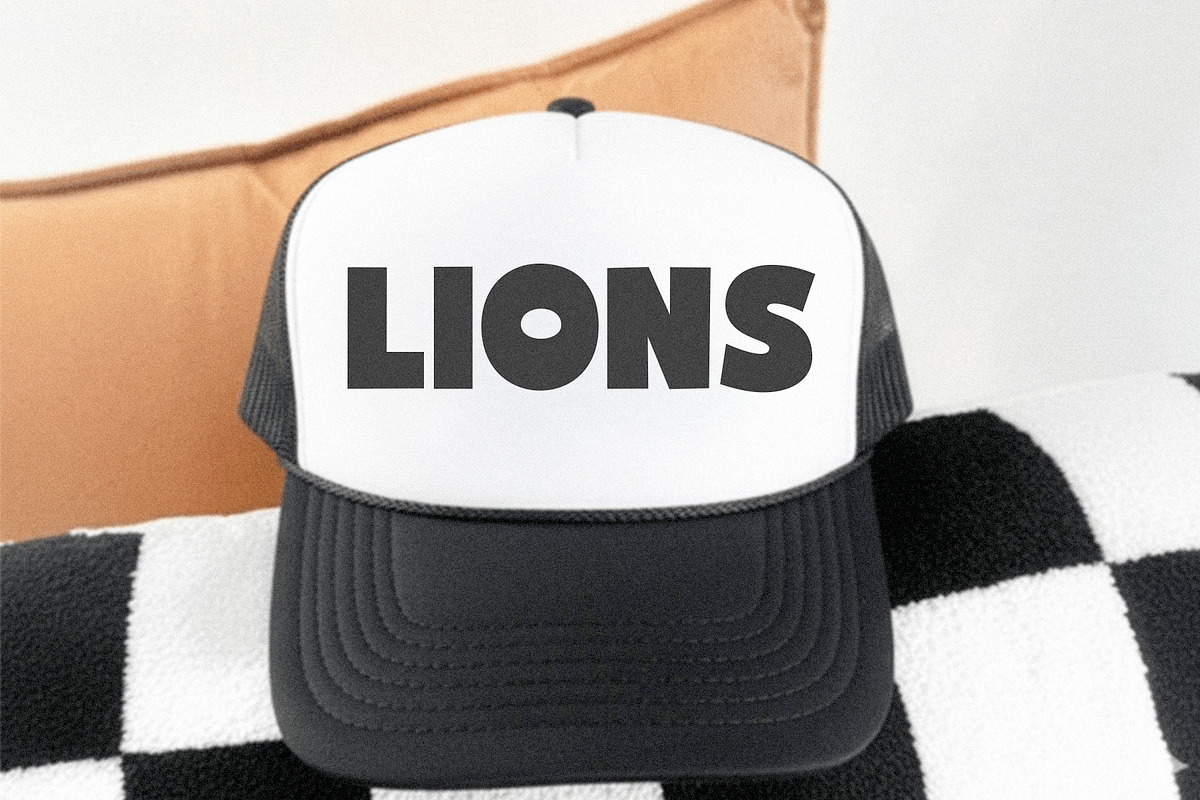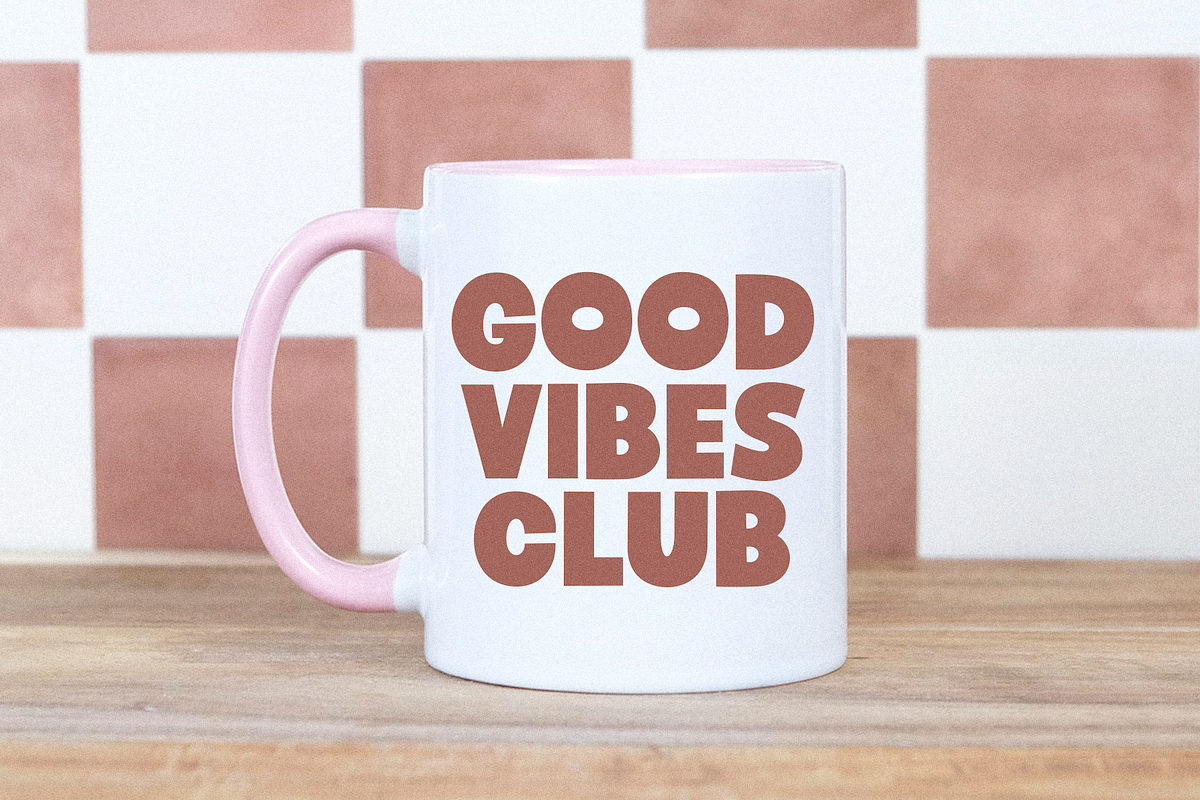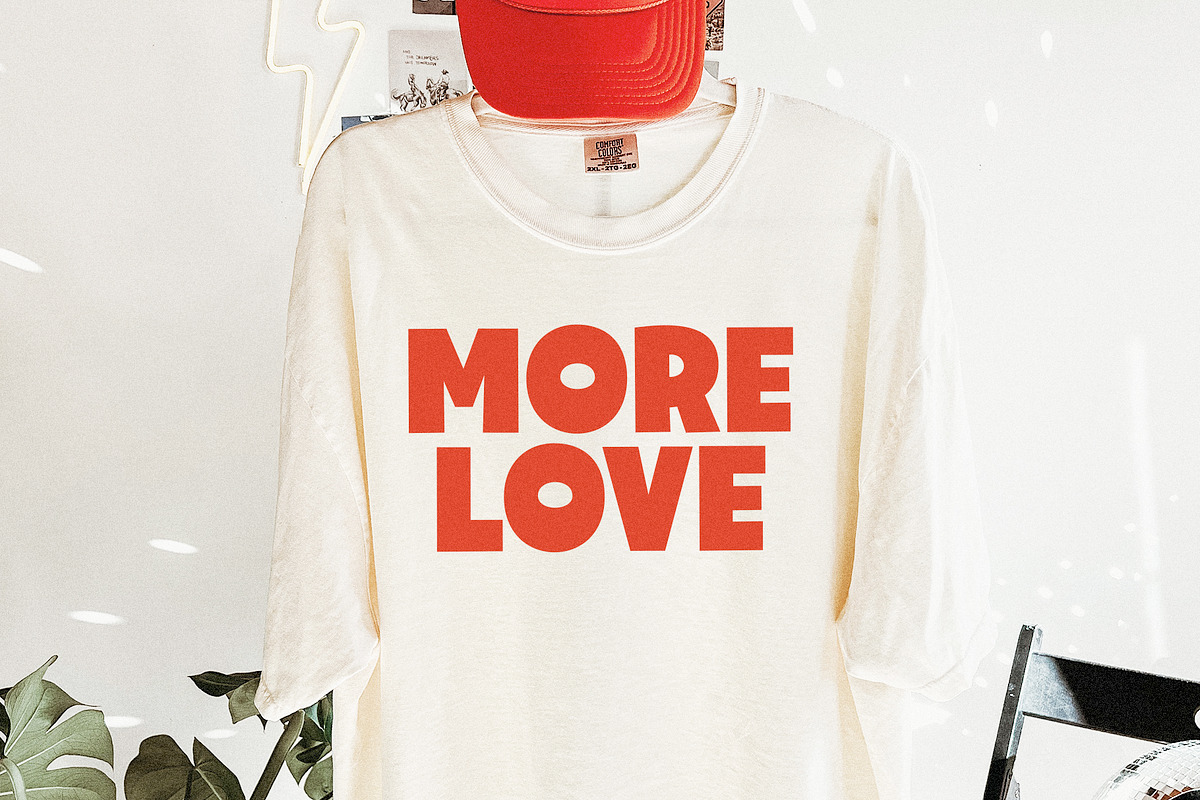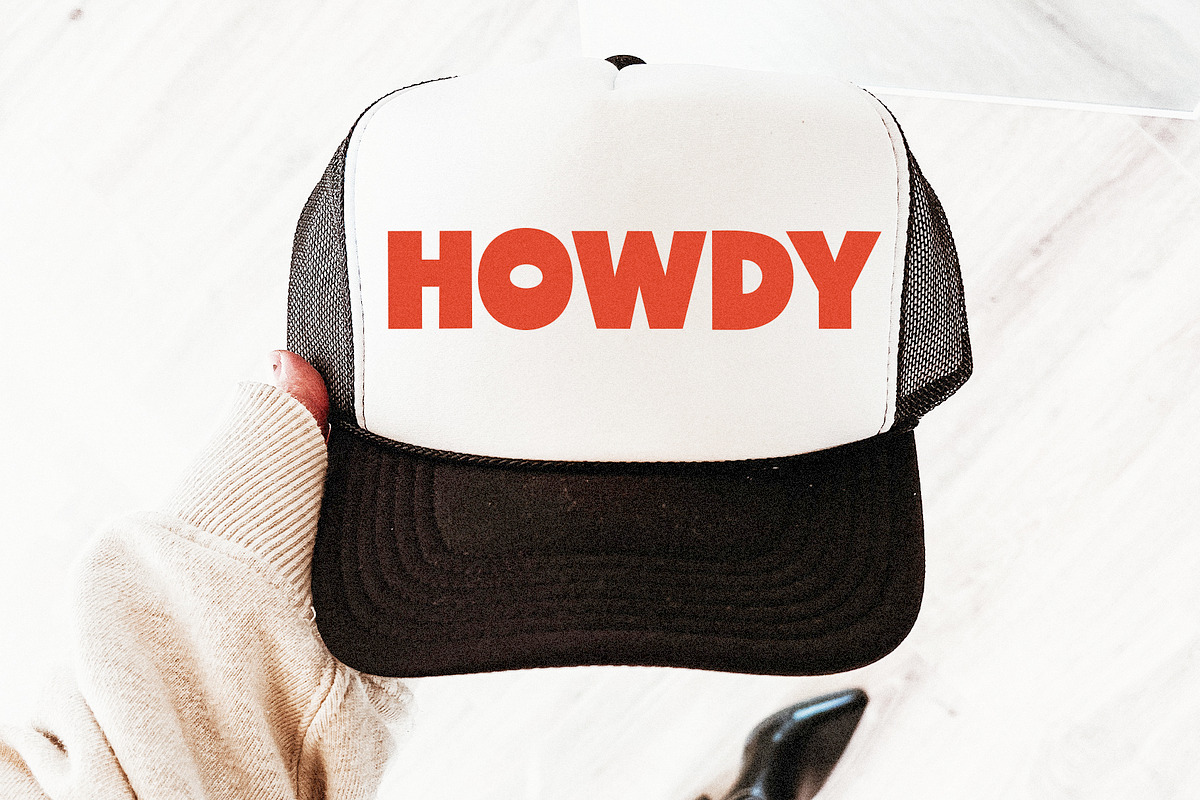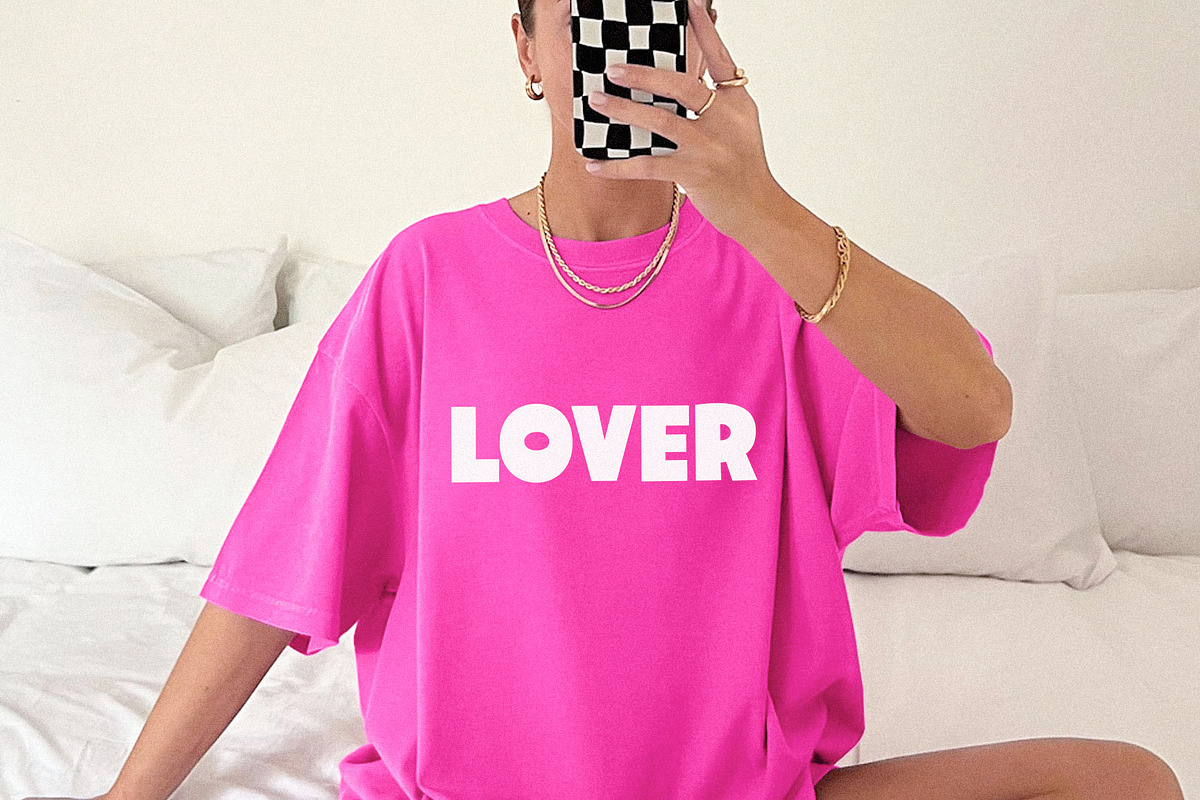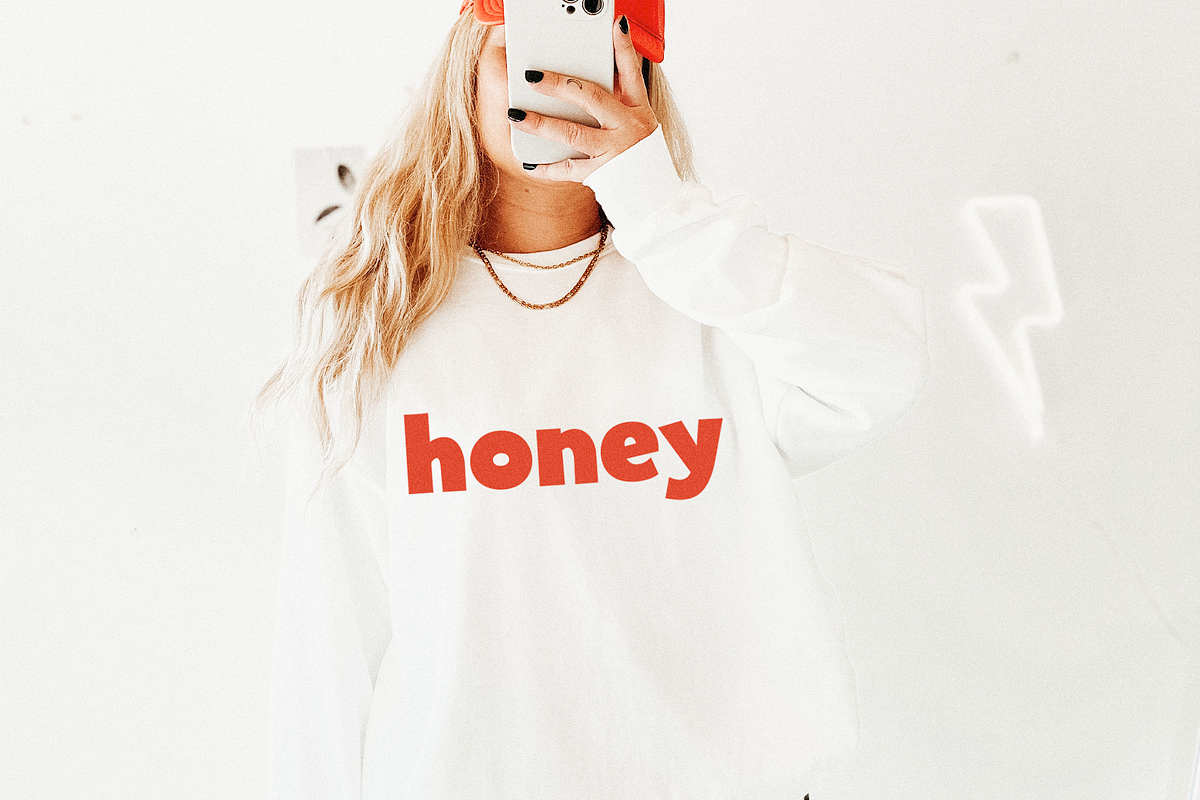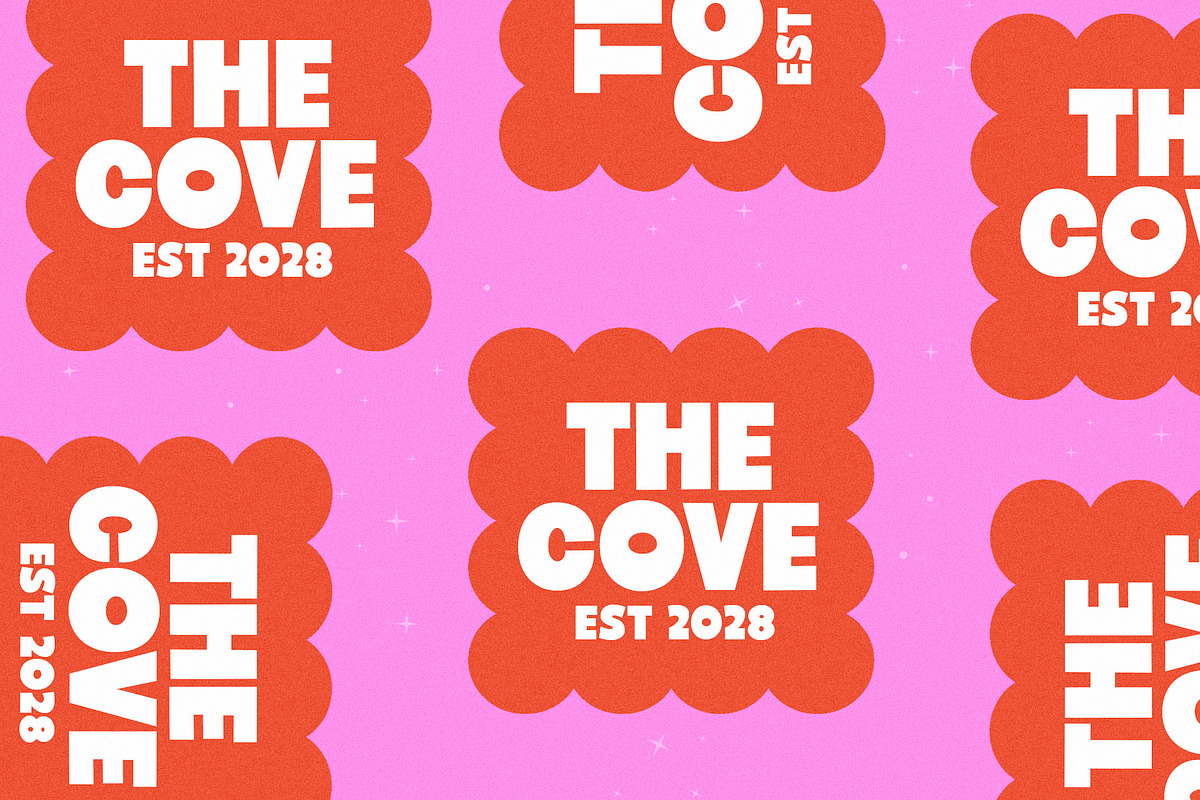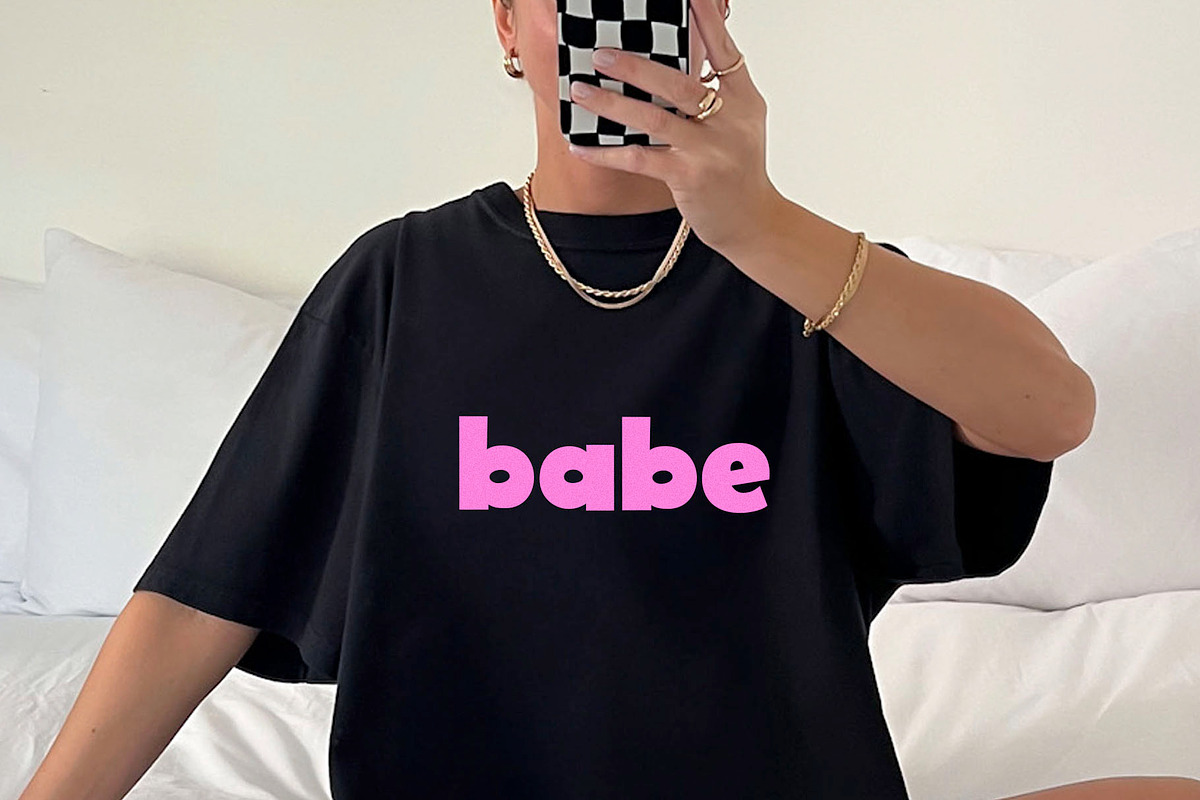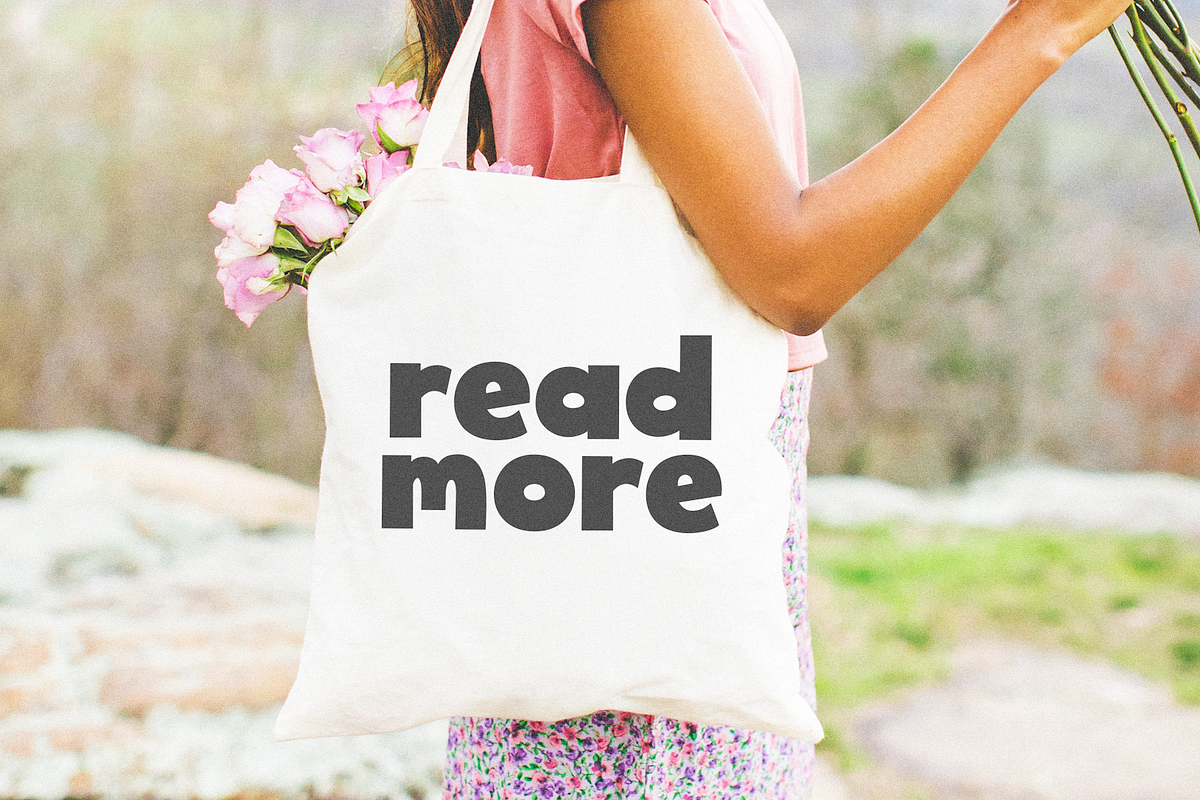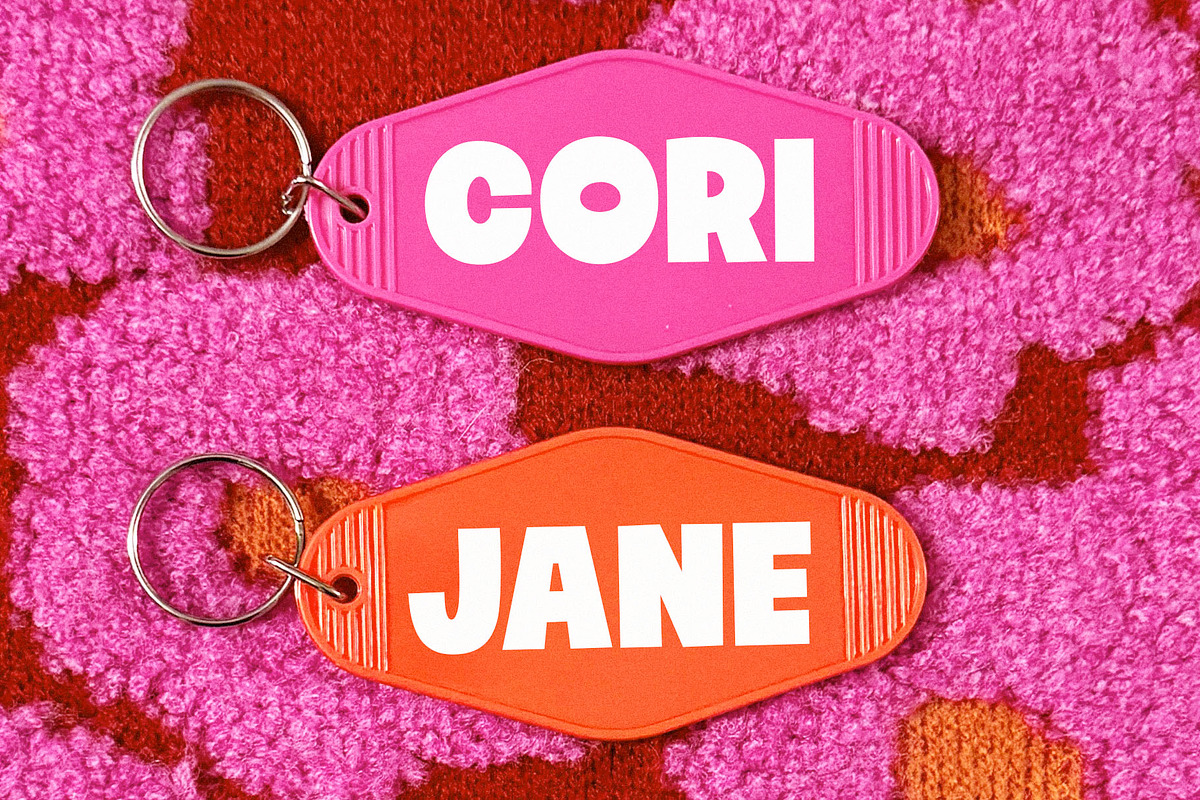
Rose Club | Cute Chunky Font
Rose Club is a cute chunky display font.
This font is perfect for all of your trendy designs, craft projects, headlines, banners, planners, goodnotes, teachers, logos and more!